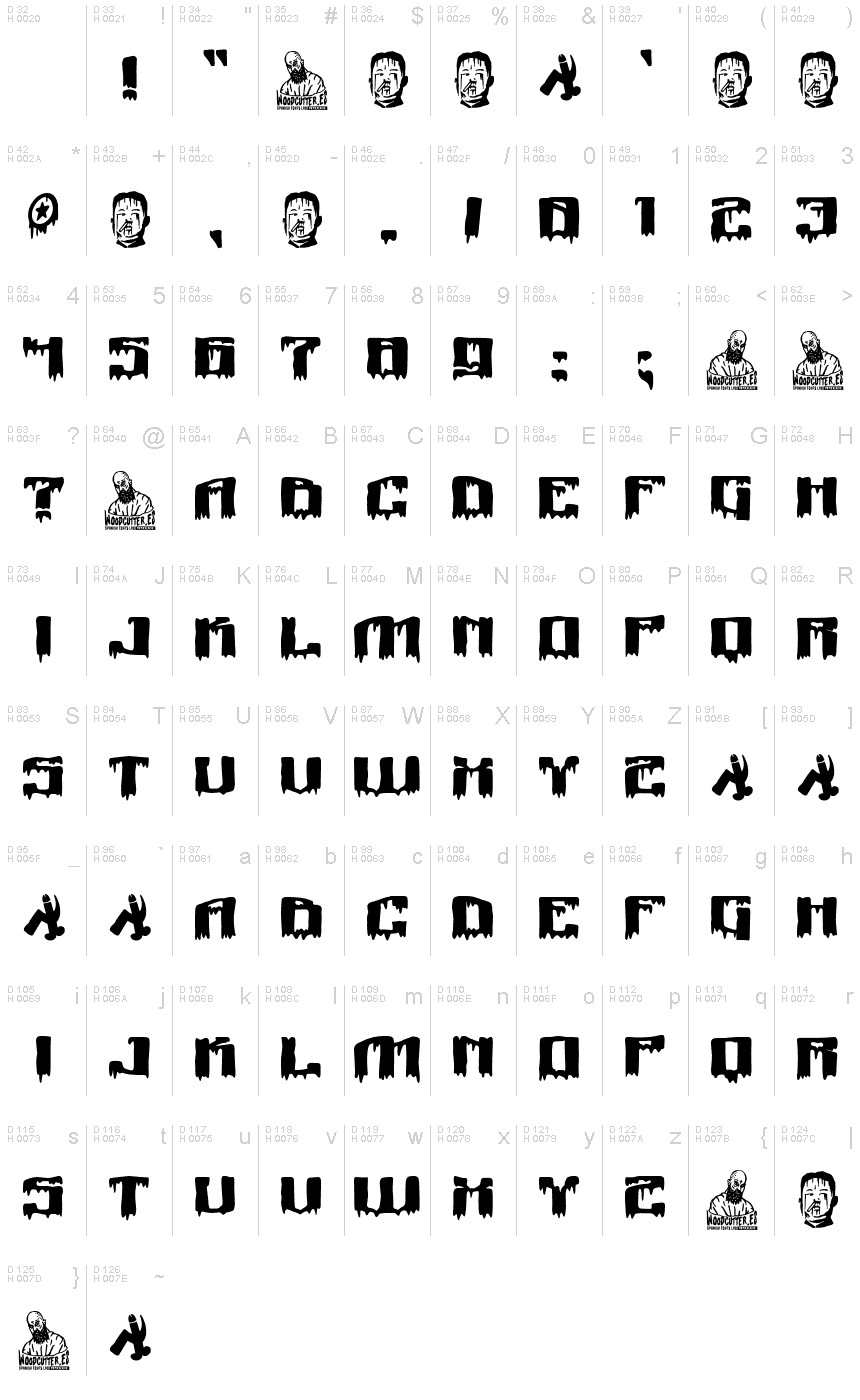
North Korea Airlines
North Korea Airlines, a haunting display font designed by Woodcutter, is perfect for projects that require an eerie and chilling atmosphere. Its bold weight and expanded width add a sense of grandeur to any design.
Whether you're creating Halloween-themed posters, horror movie titles, or gothic-inspired logos, this scary typeface will captivate your audience with its spine-chilling allure. The all caps feature further enhances the font's intensity, making it ideal for conveying messages that demand attention and leave a lasting impression.